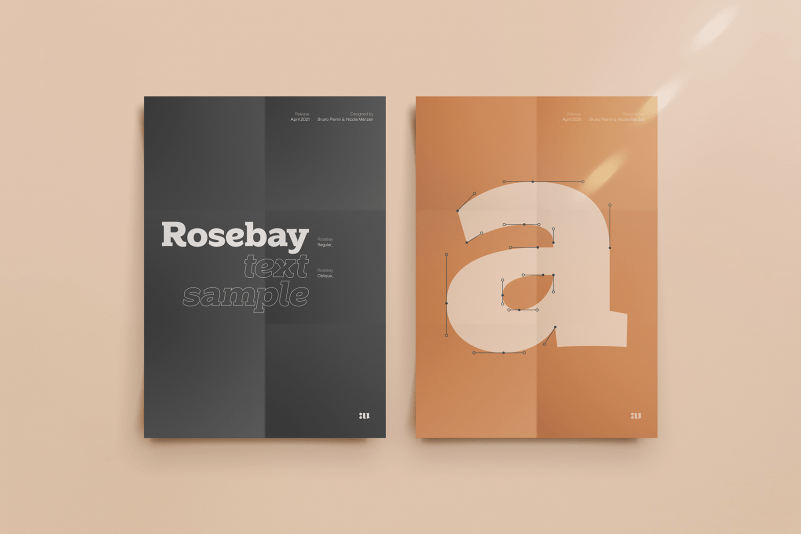
Rosebay Rounded Font
Rosebay Rounded Font – an unconventional slab serif that introduces some distinctive traits like innovative arched slabs and claw ink-traps. Excellent for any modern communication project.
This seventies-inspired slab has been designed with a sleek structure that supports its extreme weight. The unedited interplay between sharp and soft forms, that characterize the harmonic geometry, delivers high readability and originality for brands, highlights, and headlines.